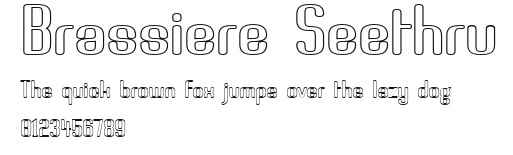
• Font Name: Brassiere Seethru
• Designer: Graham Meade
Brassiere Seethru.ttf is a modern, elegant sans-serif font designed for ultimate readability and visual harmony. Perfect for branding, headlines, web design, and print materials.